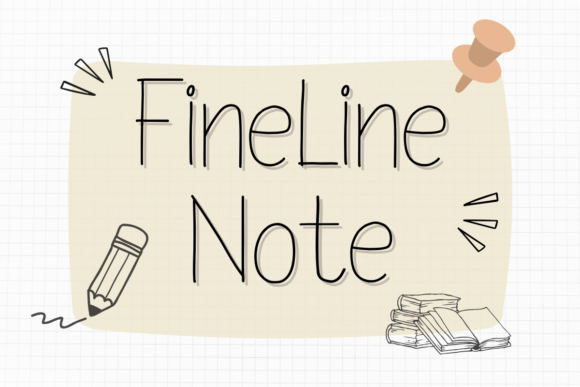
Do you ever find yourself stuck on a design project, scrolling through font options, and wondering which one will bring your vision to life? I’m sure we’ve all been there – a blank page, a blank mind, and a deadline looming. But what if I told you there’s a font that could change all that? Introducing the Fineline Note Font, a cute and simple sans serif typeface that’s about to become your new best friend.
This versatile font is perfect for creating clean and simple designs, making it a go-to choice for planners, magazine covers, packaging design, perfume design, and cosmetics. And the best part? It’s incredibly easy to use, allowing you to focus on what matters most – bringing your creative ideas to life. Whether you’re a seasoned designer or just starting out, the Fineline Note Font is a valuable addition to your toolkit, and we’re excited to share its secrets with you.
Fineline Note Font Key Features
- Font Family: Fineline Note is a unique, handwritten font designed for note-taking, journaling, and creative writing.
- Size: Fineline Note comes in a range of sizes, from 12 to 48 points, allowing for flexibility in formatting and layout.
- Resolution: The font is optimized for print and digital use at resolutions up to 300 DPI, ensuring crisp and clear text.
- Unique Characteristics: Fineline Note features subtle variations in line width, letter spacing, and ink bleed, giving it a natural, handwritten feel.
Fineline Note Font Review
I recently had the chance to work with the Fineline Note font, and I’m excited to share my thoughts with you. Here’s what I think works well:
- ✨ Beautifully crafted lines and subtle flourishes that give the font a unique, handwritten feel.
- ✨ Excellent readability, even at smaller font sizes, making it perfect for body text or longer passages.
- ✨ A wide range of weights and styles available, allowing for plenty of creative flexibility.
- ⚠️ Limited support for certain special characters and glyphs, which can be a challenge for international or technical content.
- ⚠️ Some users may find the font’s style too ornate or distracting, particularly for shorter headlines or titles.
Overall, I think the Fineline Note font is a great choice for projects that require a touch of elegance and sophistication. While it may not be the best fit for every project, I appreciate its unique character and versatility. With a bit of creative restraint, I think this font can really shine and add a special something to your designs.
Fineline Note Font is ideal for creating minimalist and modern designs. Use it for:
1. Note-taking and journaling.
2. Creating minimalist logos and branding materials.
3. Designing educational materials and worksheets.
Alternatives to Fineline Note Font
Fineline Note Font is a popular font among designers due to its elegant and refined appearance. However, there are other alternatives that can provide a similar look and feel. Here are a few options:
Carolyna Pro is a modern script font that can be used for a variety of design projects, including invitations, stationery, and packaging. It has a similar elegance and sophistication to Fineline Note Font, but with a more dynamic feel. Use Carolyna Pro for projects that require a touch of luxury and refinement.
Comparison: Carolyna Pro has a more fluid and expressive feel than Fineline Note Font, making it suitable for projects that require a sense of movement and energy.